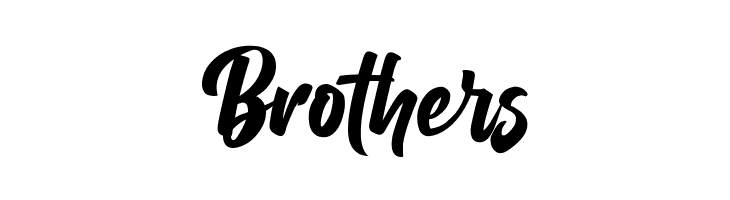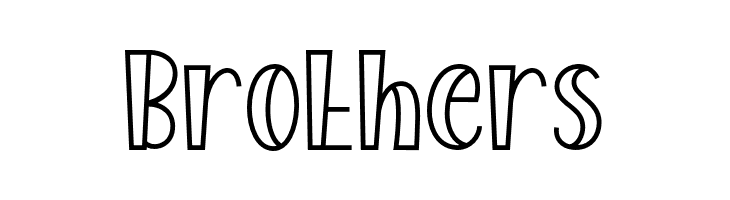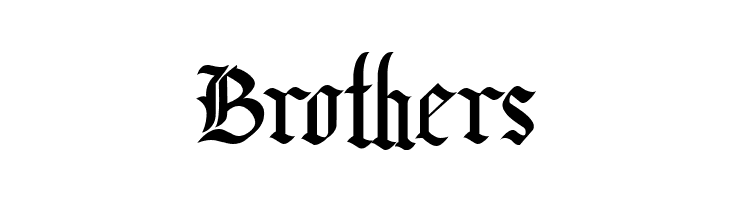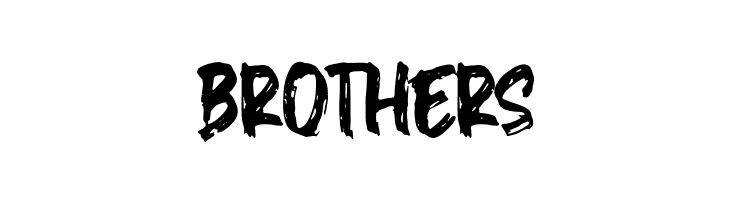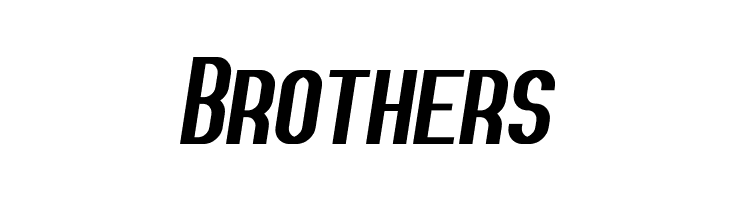
A dynamic and elegant script font with fluid letterforms and varying stroke widths.
A graceful and flowing script font with a handwritten style.
A dynamic, handwritten font with expressive, fluid strokes.
A playful, bold script font with a handwritten feel.
A lively handwritten font with fluid, cursive strokes.
A playful, flowing script font with smooth, continuous strokes and a handwritten charm.
A playful and flowing script font with a natural handwritten style.
A lively and elegant script font with flowing, connected letterforms.
An elegant script font with high contrast and ornate flourishes.
A graceful script font with flowing, cursive letters and a sophisticated, handwritten style.
A bold, brush script font with dynamic, hand-painted strokes.
A bold, energetic script font with fluid, interconnected strokes.
A graceful and elegant cursive font with flowing, intricate characters.
A whimsical, artistic handwritten font with flowing, interconnected letterforms.
An elegant script font with flowing cursive style and intricate swashes.
A bold, cursive script font with dynamic, flowing strokes and elegant connections.
A bold, expressive brush-style font with textured, dynamic strokes.
A bold, expressive brush script font with textured, hand-painted strokes.
A classic serif font with modern elegance and balanced proportions.
A bold, geometric font with a modern and striking design.
A bold, italicized font with a sleek, modern appearance and high contrast.
A bold, energetic script font with dynamic curves and a lively style.
A bold, expressive script font with flowing, cursive letterforms.
A playful, hand-drawn font with tall, narrow letters and a whimsical style.
A bold, impactful font with thick strokes and strong presence.
A playful, casual handwritten font with an organic flow and friendly appearance.
A bold, brushstroke font with a dynamic and textured appearance.
A playful, handwritten font with bold, rounded characters.
A playful, handwritten font with smooth curves and a casual style.
An elegant, flowing script font with a handwritten style.
A lively and flowing script font with elegant, cursive letterforms.
A modern, elegant handwritten font with a flowing style.
An ornate Blackletter font with intricate, bold letterforms.
A bold, ornate blackletter font with high contrast and intricate details.
A playful, bold font with rounded edges and a whimsical style.